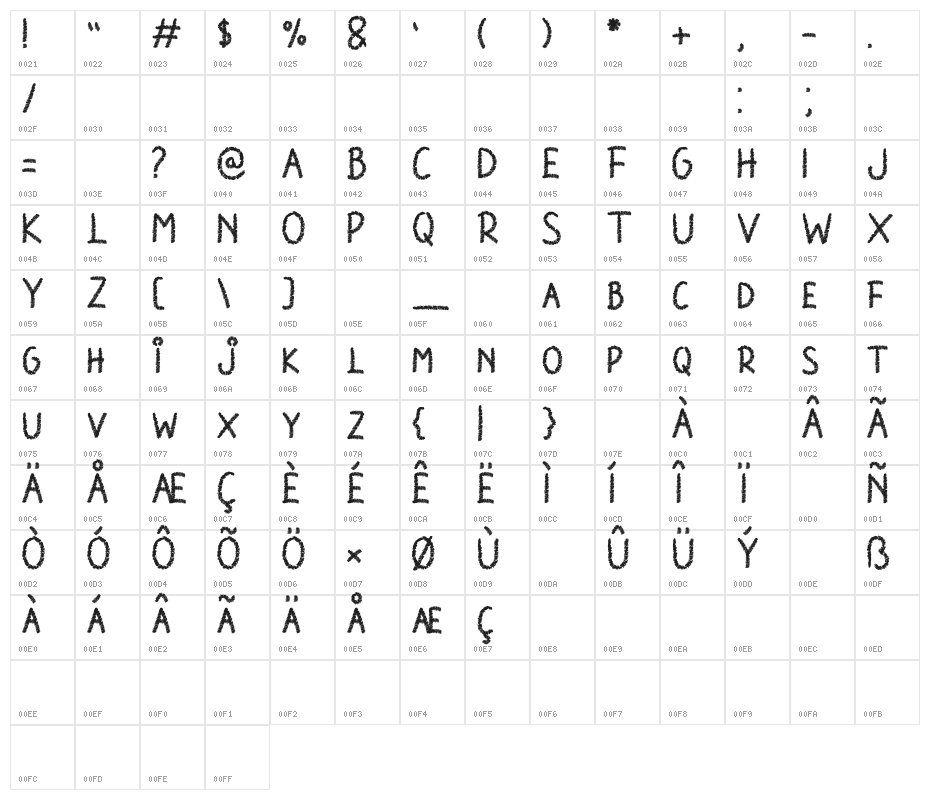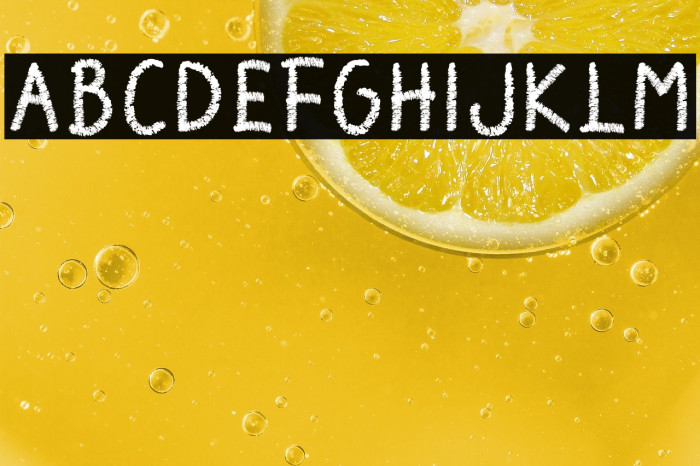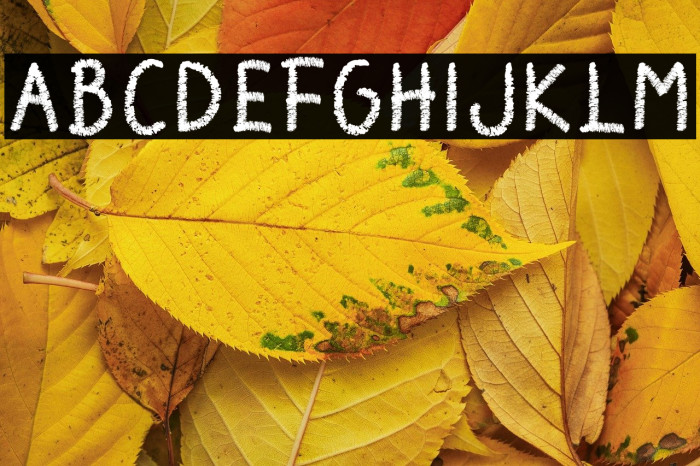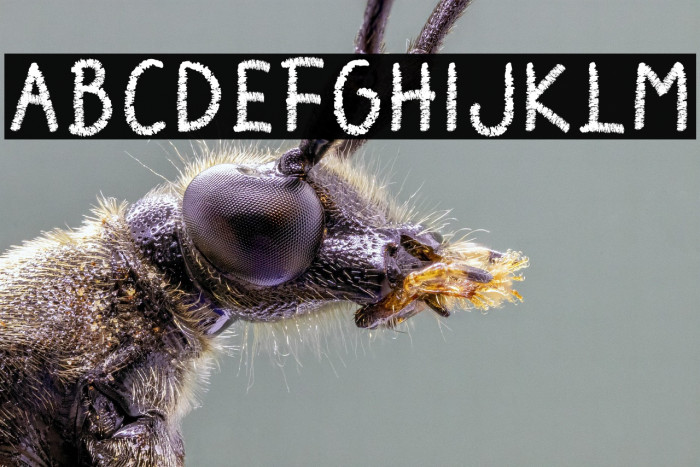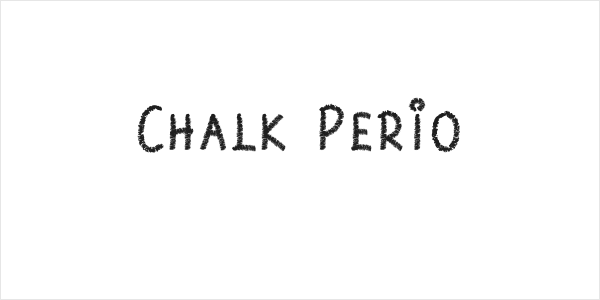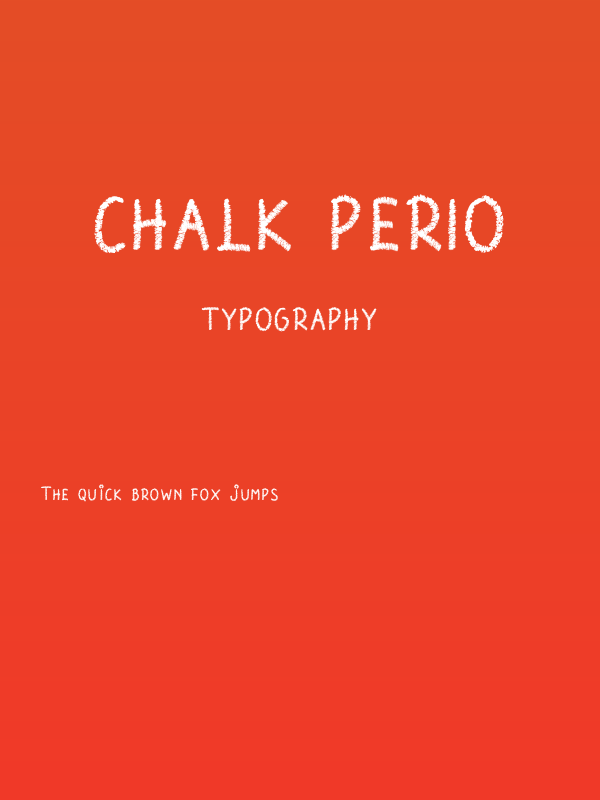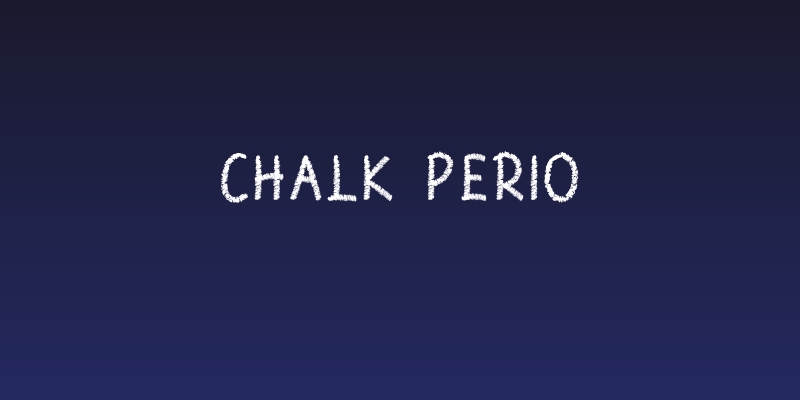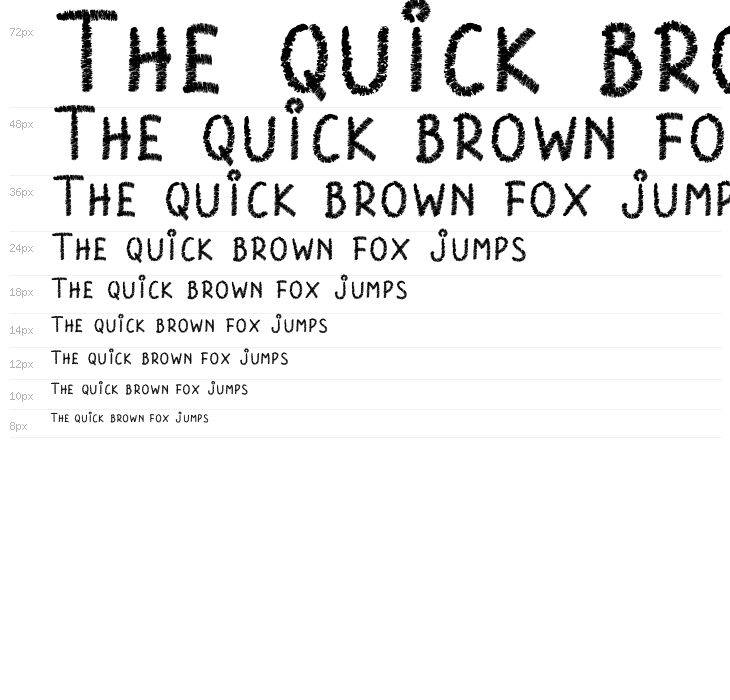
Chalk Perio Font
Chalk Perio Description
This font features a playful and textured style reminiscent of chalk writing on a blackboard. The characters are bold and slightly irregular, giving them a hand-drawn appearance. The uppercase and lowercase letters maintain a consistent height, with rounded edges and a slightly rough texture that adds to the casual and informal feel. The numerals and special characters follow the same design principles, ensuring uniformity across the font. This style is ideal for projects that require a friendly and approachable look, such as educational materials, children's books, or creative advertising.
| Overall Style | Playful, Informal |
| Proposed Projects | Ideal for educational materials, children's books, creative advertising, and informal invitations. |